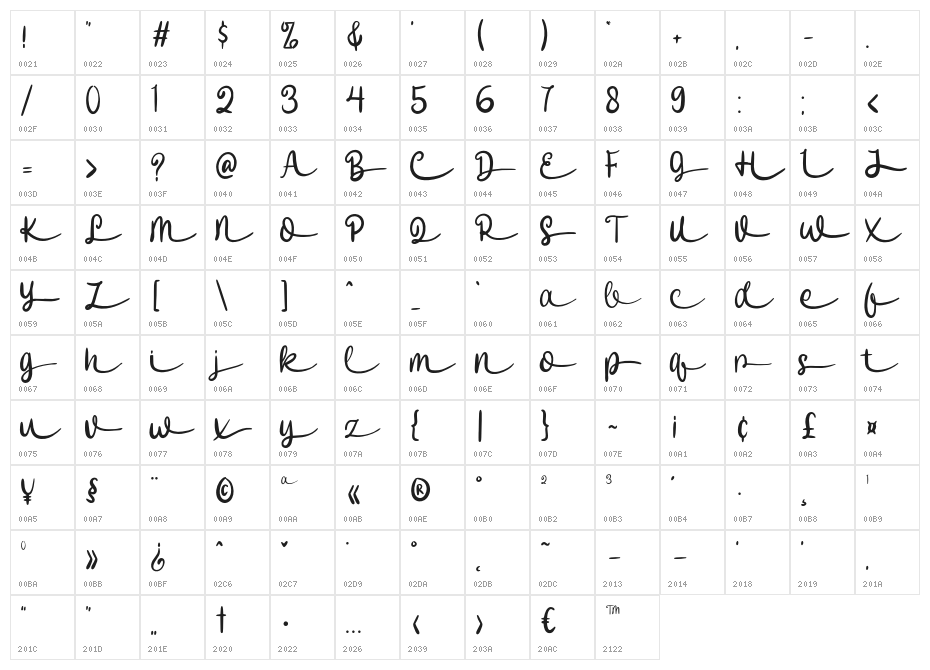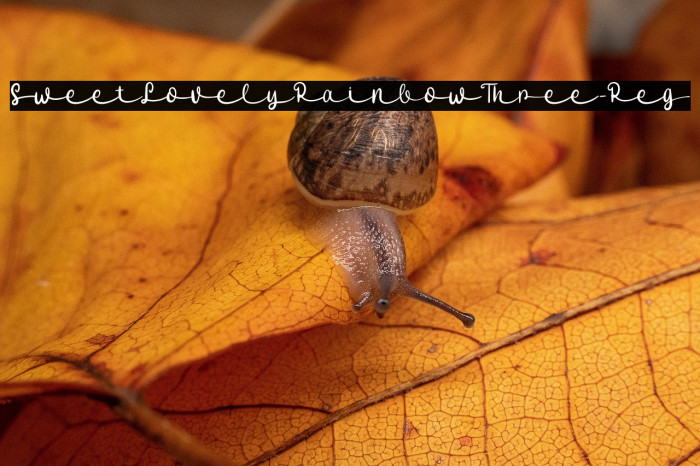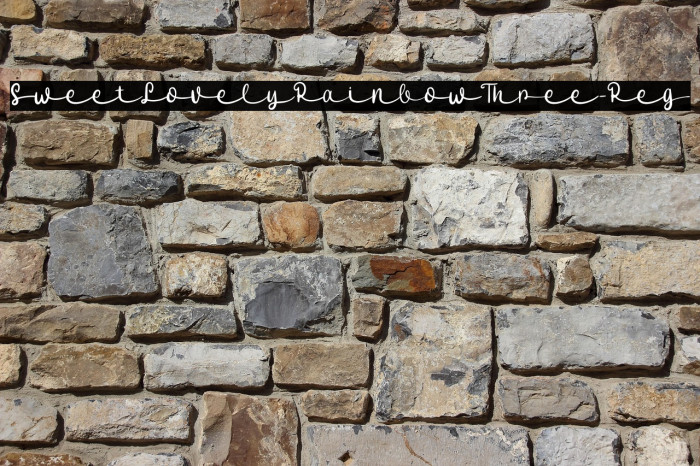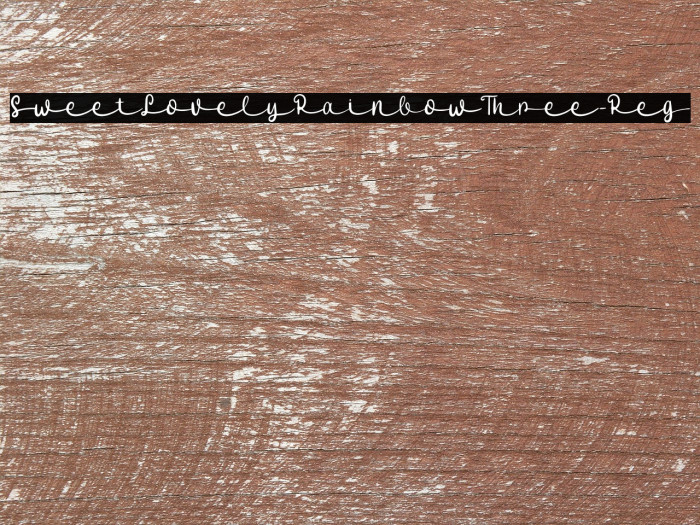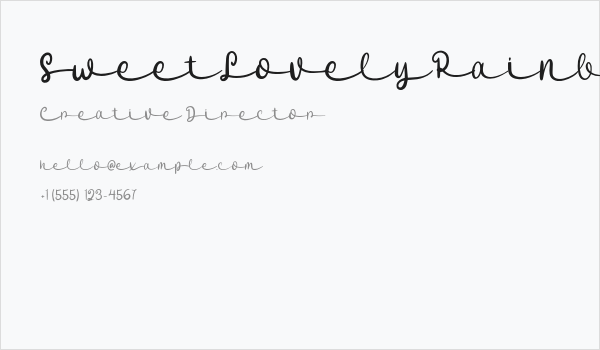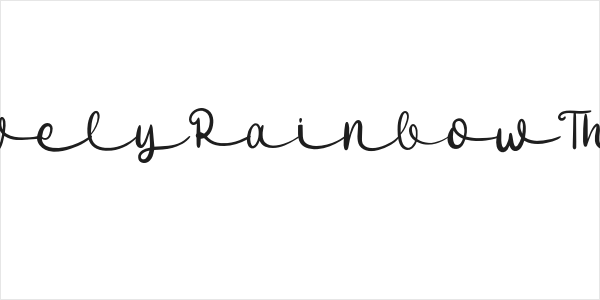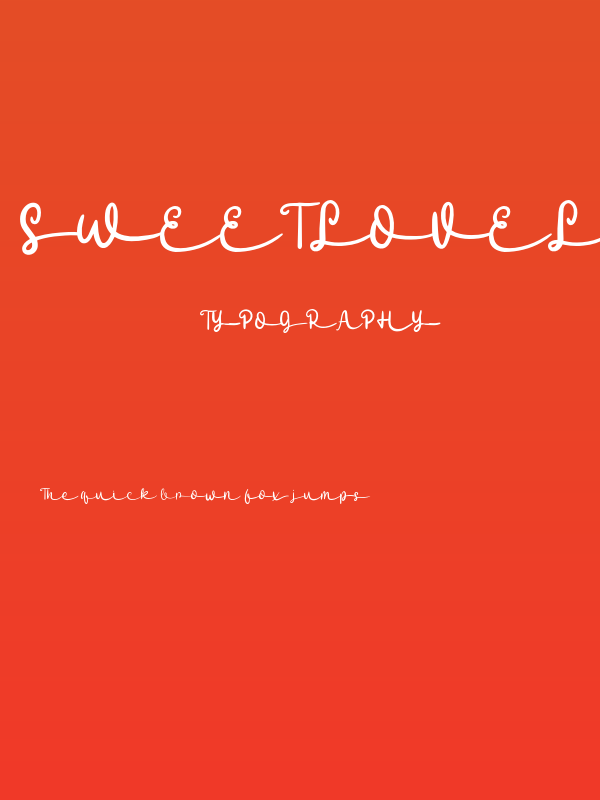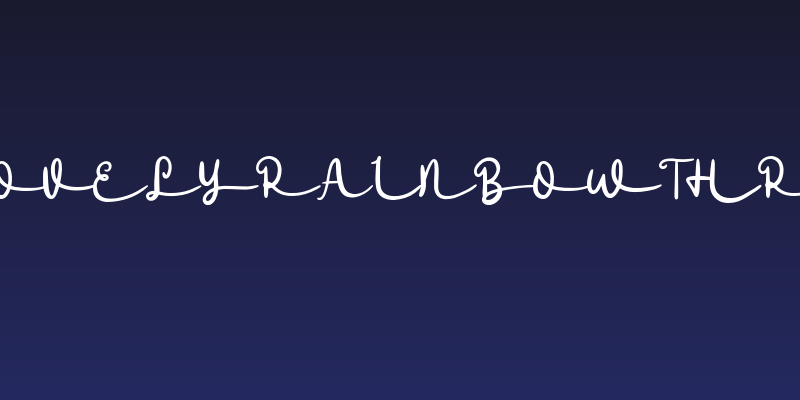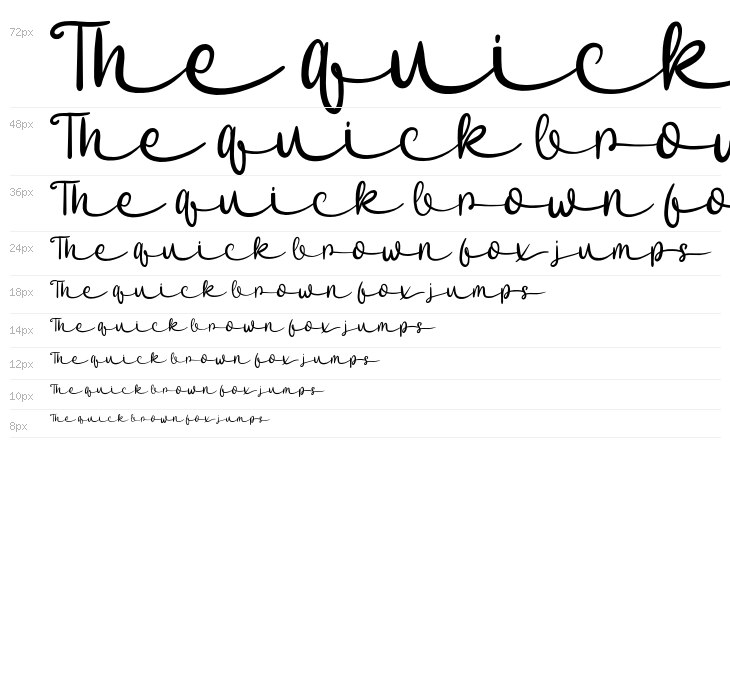
SweetLovelyRainbowThree-Reg Font
SweetLovelyRainbowThree-Reg Description
A playful, handwritten script font with a casual and flowing style, featuring connected letters and a whimsical appearance.
| Overall Style | Casual, Whimsical |
| Use Case | Logos, Invitations, Greeting cards |
| Proposed Projects | Greeting cards, invitations, personal branding. |